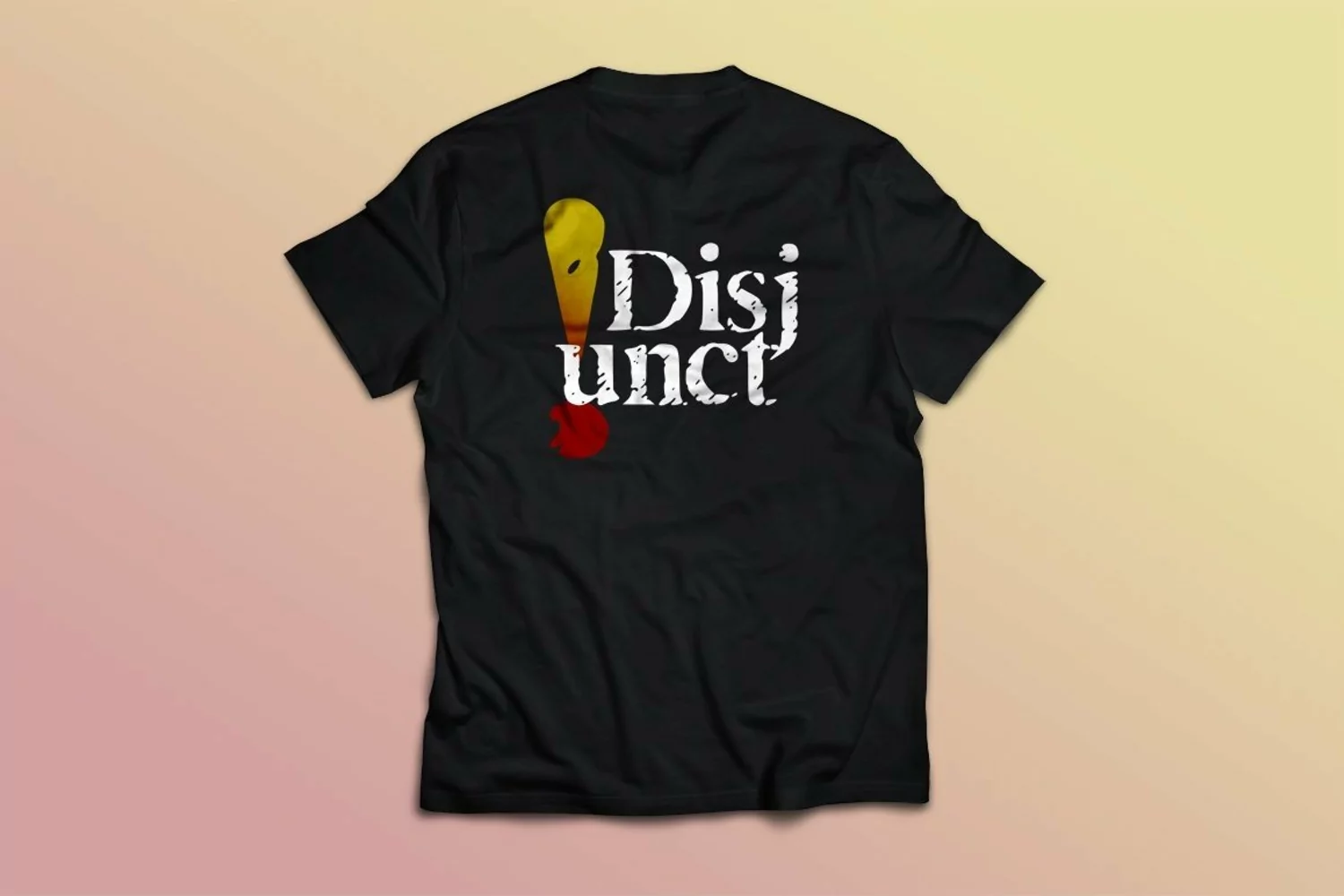
Introducing Disjunct!
Disjunct is a fresh & modern font. Disjunct is perfectly suited to stationery, logos, t-shirt, paper, print design, website header, photo frame, flyer, music cover, poster, image slider and much more.